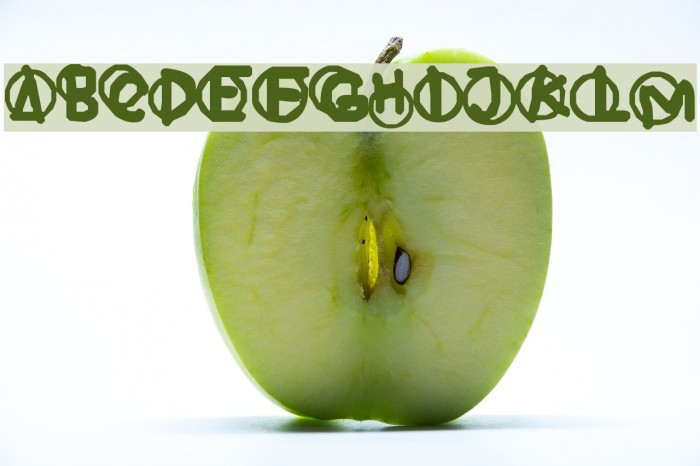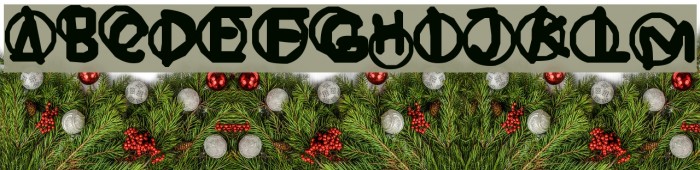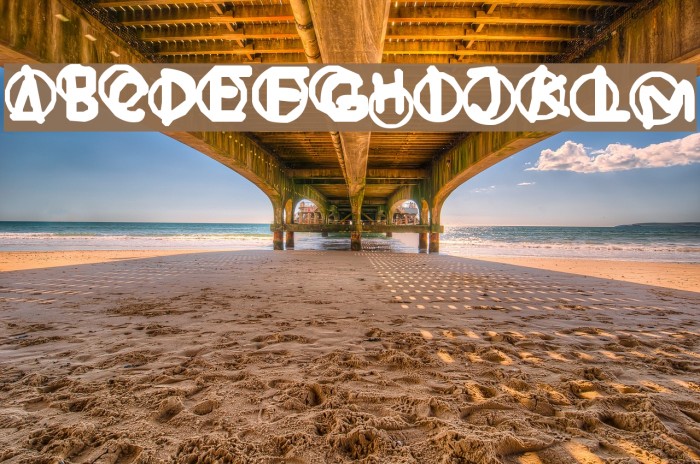
HardWare Font
This font features a bold and geometric design, characterized by thick strokes and circular elements that intersect with straight lines. The letters are constructed with a strong emphasis on symmetry and balance, creating a futuristic and industrial feel. The uppercase characters are particularly striking, with each letter enclosed within a circular or semi-circular form, giving the font a unique and cohesive appearance. The overall aesthetic is modern and edgy, suitable for projects that require a bold statement. The font's distinct style makes it ideal for use in branding, posters, and other creative designs where a strong visual impact is desired.
A bold, geometric font with circular and linear elements, offering a modern and industrial look.
- Proposed Projects: Ideal for branding, posters, album covers, and other creative projects requiring a bold, futuristic aesthetic.